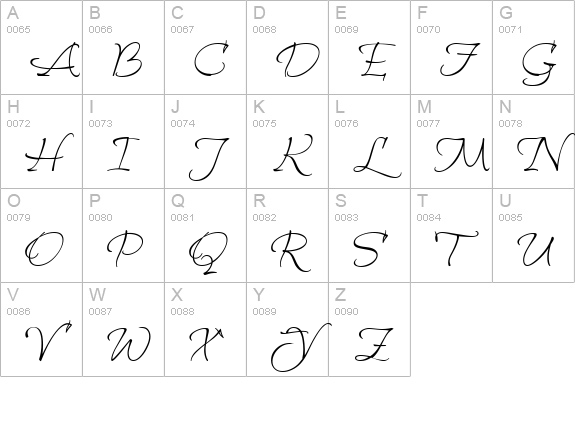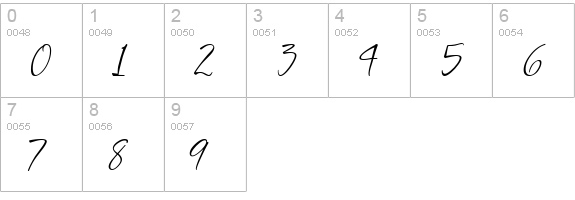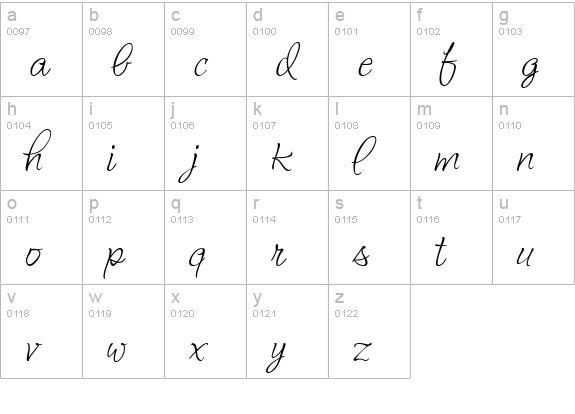
MaryHelenJF Font Details
Introducing MaryHelenJF, a stunningly elegant font that effortlessly embodies grace and sophistication. With its delicate curves and intricate details, this font adds a touch of timeless beauty to any project or design. MaryHelenJF is not just visually captivating, but it also exudes a sense of warmth and friendliness, making it perfect for a wide range of applications. Whether you're working on invitations, branding materials, logos, or even personal projects, this font will elevate your creations to new heights. What sets MaryHelenJF apart is not just its exquisite design, but also its accessibility. Unlike many other premium fonts, MaryHelenJF is available for free! Yes, you heard it right – this exceptional font can be freely downloaded at FontsMarket.com, allowing you to bring elegance and sophistication to your projects without breaking the bank. Crafted with meticulous attention to detail, MaryHelenJF offers a vast range of characters, including uppercase and lowercase letters, numbers, punctuation, and special characters. This versatility ensures that you have all the tools you need to bring your creative vision to life. Whether you're a professional designer or a passionate hobbyist, MaryHelenJF is sure to become an invaluable asset in your font collection. Its timeless beauty and effortless charm will captivate your audience, leaving a lasting impression. So why wait? Download MaryHelenJF today, and let its elegance and grace enhance your designs. With its free availability at FontsMarket.com, you have the opportunity to elevate your creations and make a statement without spending a dime. Experience the beauty of MaryHelenJF for yourself and unleash your creativity like never before.